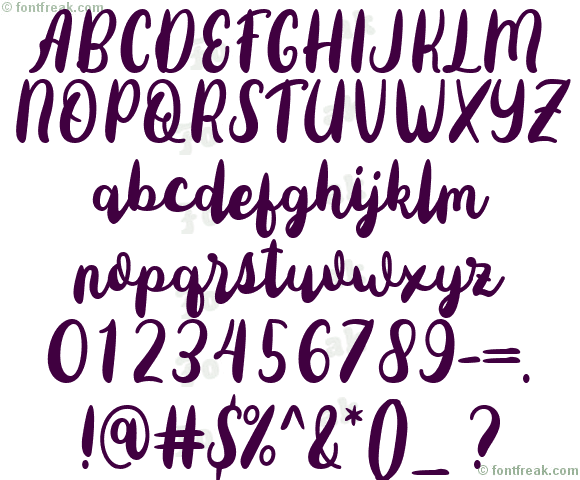
Sottee
Sottee, designed by Situjuh Nazara in 2018, is a captivating handwritten font that brings a unique flair to any design project. This display typeface embodies a playful and casual aesthetic, making it perfect for various creative applications. The Sottee font features a medium stroke weight with smooth, flowing lines that create an inviting and friendly feel. Its moderate contrast and well-balanced spacing enhance readability while still capturing attention with its artistic style. The font's decorative elements, such as slight flourishes and playful curves, add a personal touch, making it stand out in a sea of more conventional typefaces.
Ideal use cases for the Sottee font include wedding invitations, where its whimsical charm can beautifully convey romance. It also shines in the creation of restaurant menus, adding a touch of warmth and approachability to the dining experience. Graphic designers will find it particularly useful for crafting engaging social media graphics and promotional materials, as it draws the viewer's eye without overwhelming the content. Additionally, the font is well-suited for crafting playful branding elements for small businesses, allowing owners to establish a memorable identity.
Target audiences for the Sottee font include graphic designers seeking to enhance their portfolios, small business owners aiming to create inviting marketing materials, and content creators looking for a unique typeface to express their style. The Sottee font free download option makes it accessible for anyone looking to elevate their design projects without breaking the bank.
What sets this font apart is its ability to combine elegance with a casual touch, making it versatile enough for both formal and informal settings. Whether for personal or professional use, Sottee offers a charming solution for those wanting to make a lasting impression with their typography.